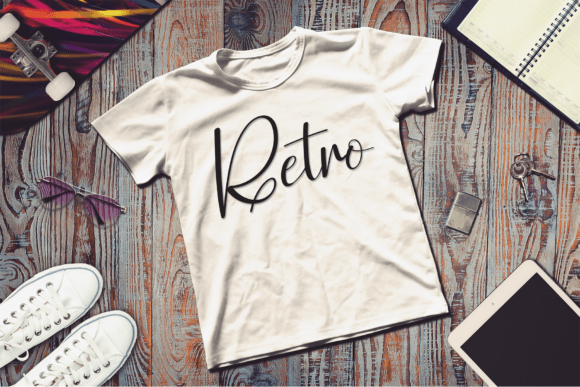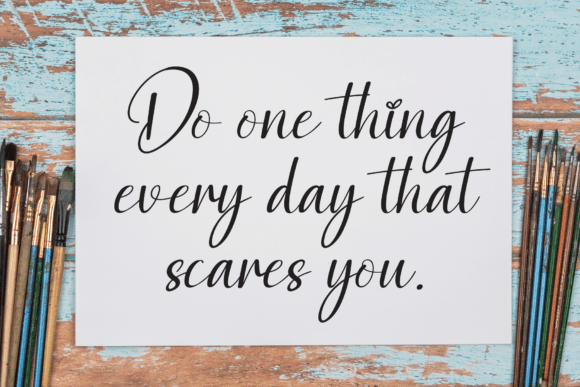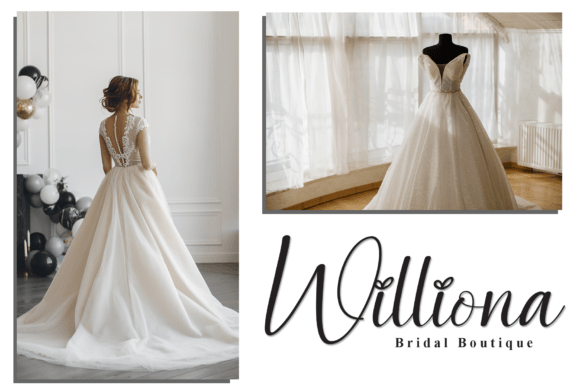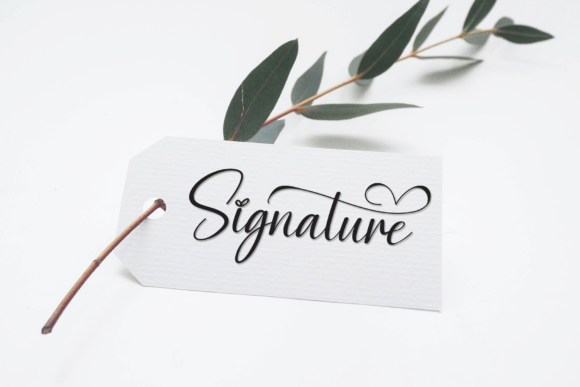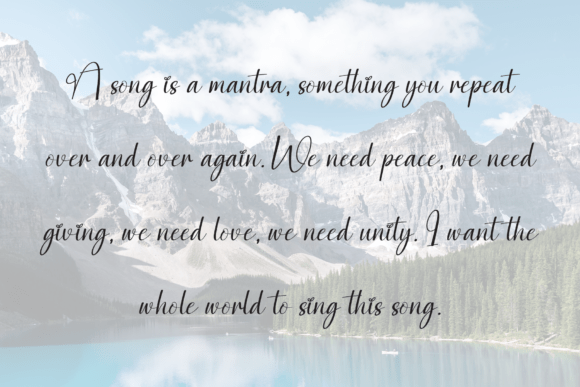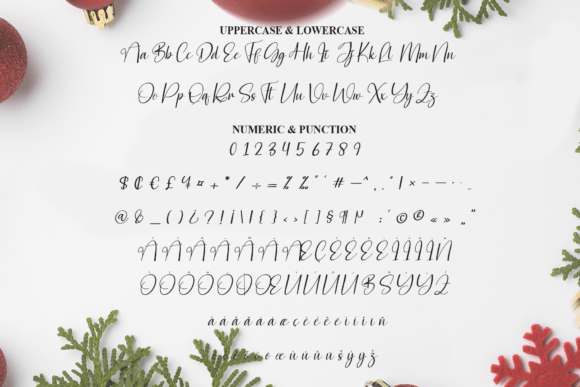
Introducing the Magical Christmas Font: Elevate Your Designs with Festive Flair
Are you searching for a special creative product to make your designs shine this holiday season? Look no further! Our Christmas Font is here to provide you with an extraordinary experience, perfect for a wide range of projects. From wall displays to wedding invitations, social media post logos, advertisements, product packaging, and more, our latest style letters are designed to add a touch of festive magic to your work.
What Makes Our Christmas Font So Special?
Our Christmas Font is crafted with love and care to ensure that it meets the needs of designers and crafters alike. With its unique and tasteful handwriting style, this font is sure to make your projects stand out from the crowd. Whether you’re working on a holiday-themed project or simply want to add a touch of festive flair to your designs, our Christmas Font is the perfect choice.
Our Christmas Font is incredibly versatile, making it perfect for a wide range of design projects, including:
- Wall displays: Create eye-catching holiday displays for your home or office.
- Wedding invitations: Add a touch of festive flair to your wedding stationery.
- Social media post logos: Elevate your social media presence with custom logos and graphics.
- Advertisements: Create attention-grabbing ads that showcase your brand’s festive spirit.
- Product packaging: Add a touch of holiday magic to your product packaging.
- Product designs: Create stunning product designs that showcase your brand’s personality.
- Labels: Design custom labels that add a touch of festive flair to your products.
- Photography: Use our font to add custom watermarks and overlays to your photos.
- Invitations: Create custom invitations for parties, events, and more.
- Stationery: Add a touch of festive flair to your stationery and correspondence.